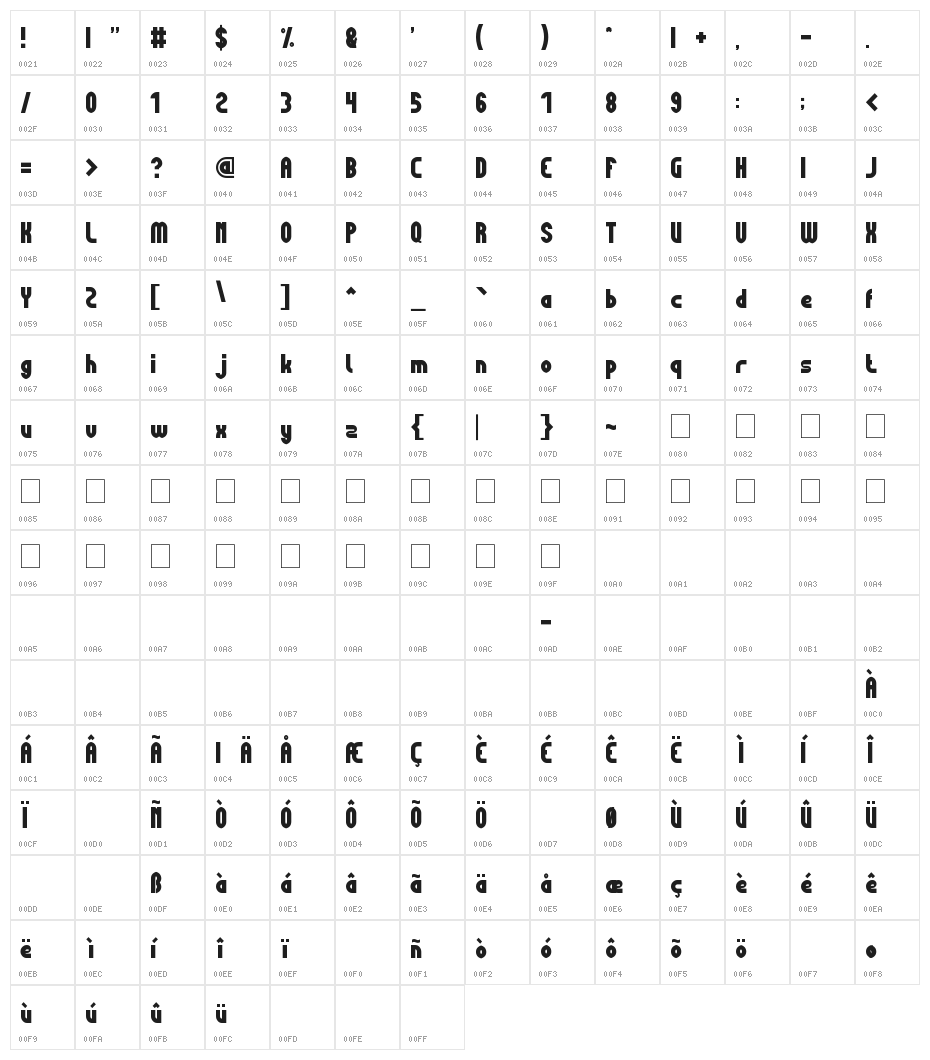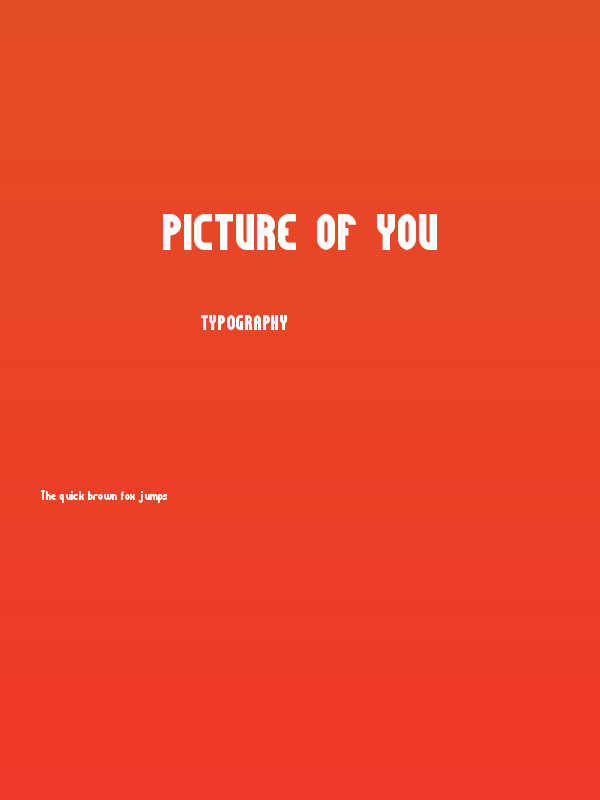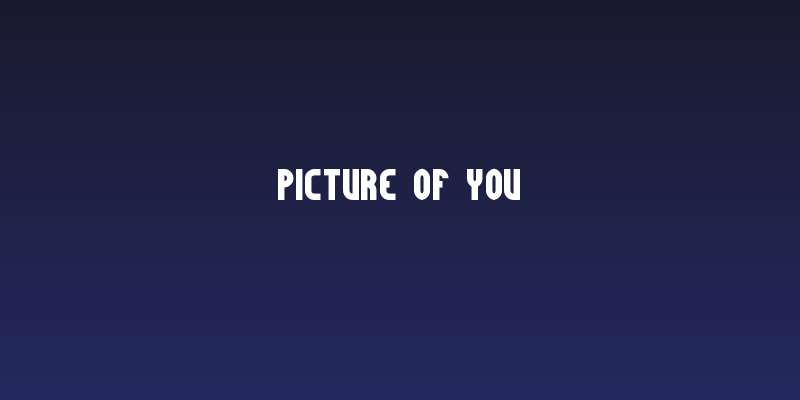
picture of you Font
picture of you Description
This font features a bold and geometric design with a strong presence. The characters are crafted with a consistent thickness, creating a uniform and cohesive look. The uppercase letters exhibit a blocky and robust style, while the lowercase letters maintain a similar geometric structure with slightly softer edges. The numerals are clear and easy to read, matching the boldness of the alphabet. Special characters are distinct and integrate seamlessly with the overall design. This font is ideal for making a statement, with its eye-catching and modern aesthetic.
| Proposed Projects | Ideal for branding, posters, headlines, and any project requiring a bold statement. |